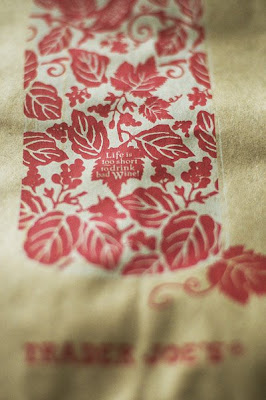
Yesterday I ventured out to the Trader Joe's in St. Louis Park- to the wine section. I thought these wine paper-bags had a nice graphic treatment. Notice the typography inserted into the leaves of the design... (The overall image is a wine bottle filled with this red grape/leaf motif). I thought this was very creative and stylish! Posted by EMILY